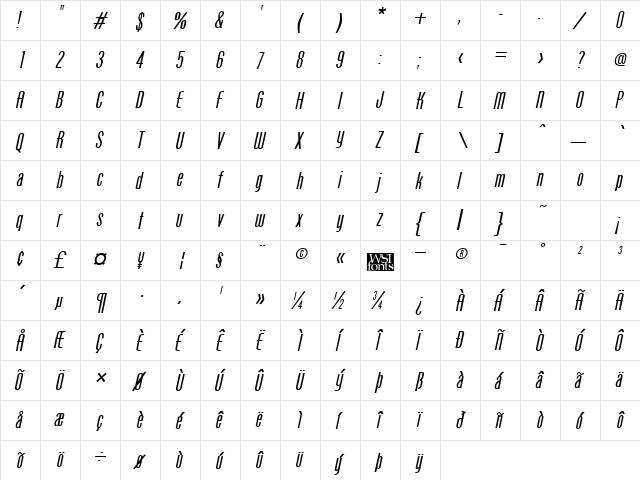
Protege Italic
Design Context for Protege Typeface
Protege is a composed and adaptable typeface that performs quietly and consistently across a wide range of design contexts. Its italic angle brings a sense of urgency and motion to the letterforms.
Pro Tip: Try Protege for annotation and caption copy alongside an upright companion — the contrast in angle creates a dynamic but ordered typographic system.